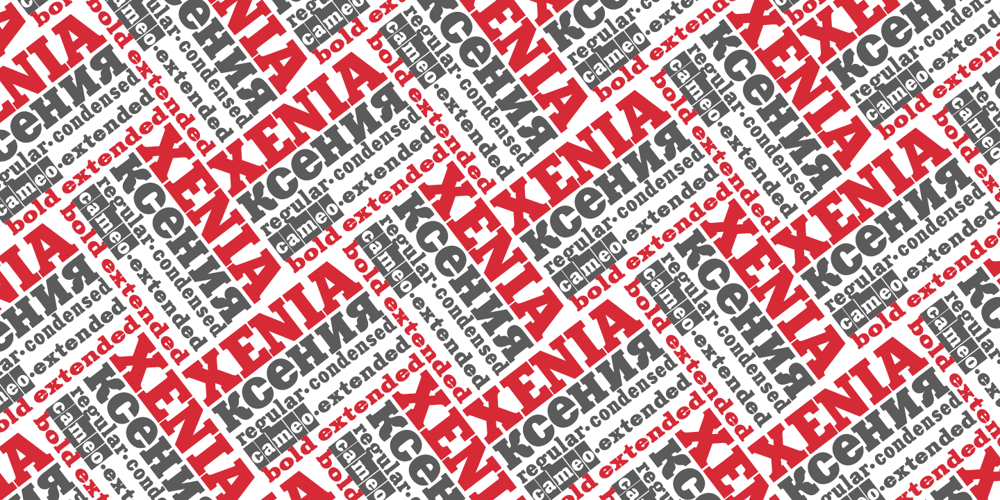
Xenia
Xenia font
Xenia Font Family was designed by Lyubov Kuznetsova and published by ParaType. Xenia contains 5 styles and family package options. Designed for ParaType in 1990 by Lyubov Kuznetsova. A bold square-serif style. For use in advertising and display typography. The decorative style was added in 1993 by Lyubov Kuznetsova and Alexander Tarbeev.